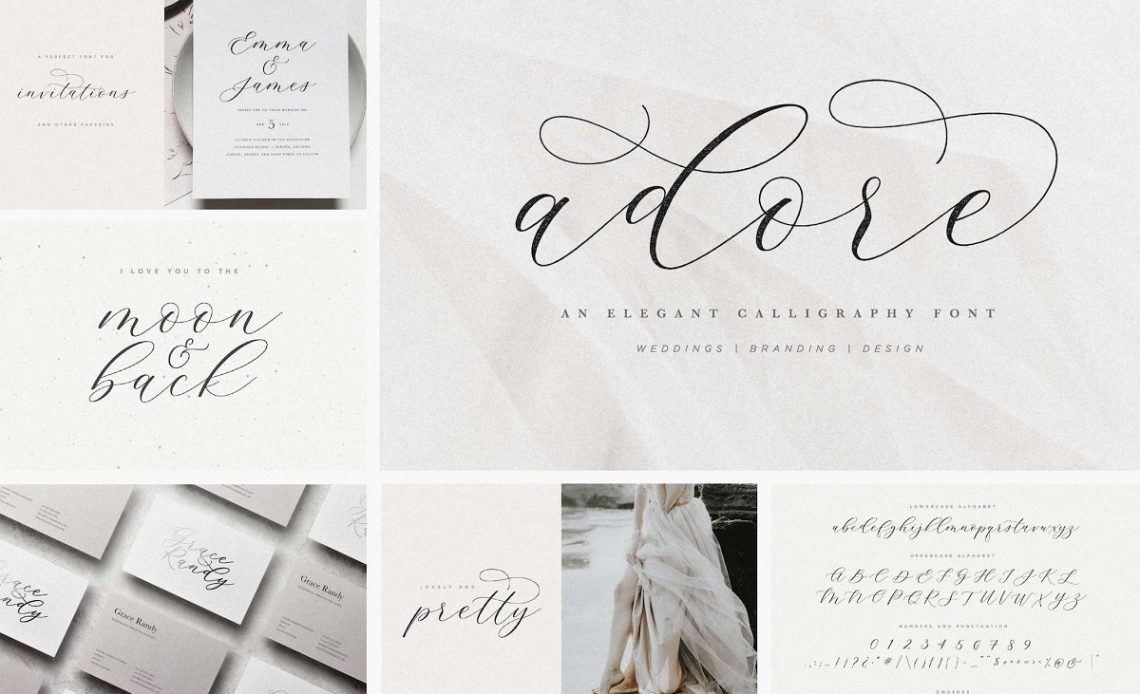
Created by Lindsay Catherine, this bundle includes everything you need for your branding content, websites, invitations, and stationery. From modern script to fancy calligraphy and sans serif fonts, this bundle has it all.
Inside this bundle, you will find 10 different fonts, including Canyonlands Script Font, Adore Calligraphy Font, Fantastique Font DUO, Modern Bohemian Font DUO, Julietta Script Font, Monterey Script Font, Sangria Script Font, and Somersette Script Font. With up to 80% savings, this bundle is a steal!